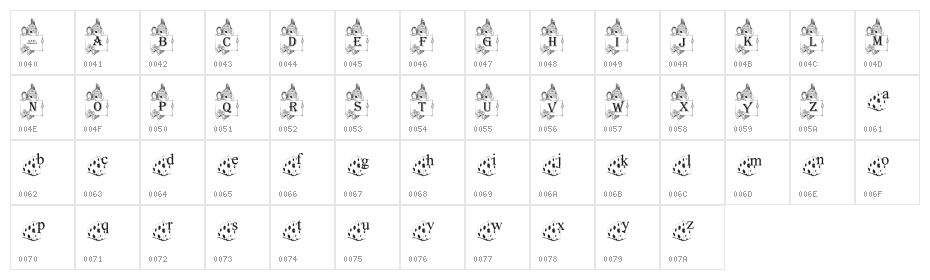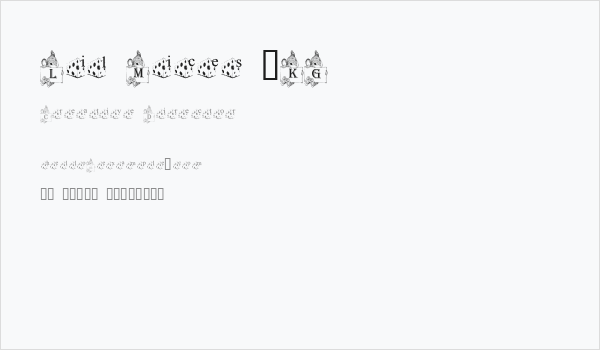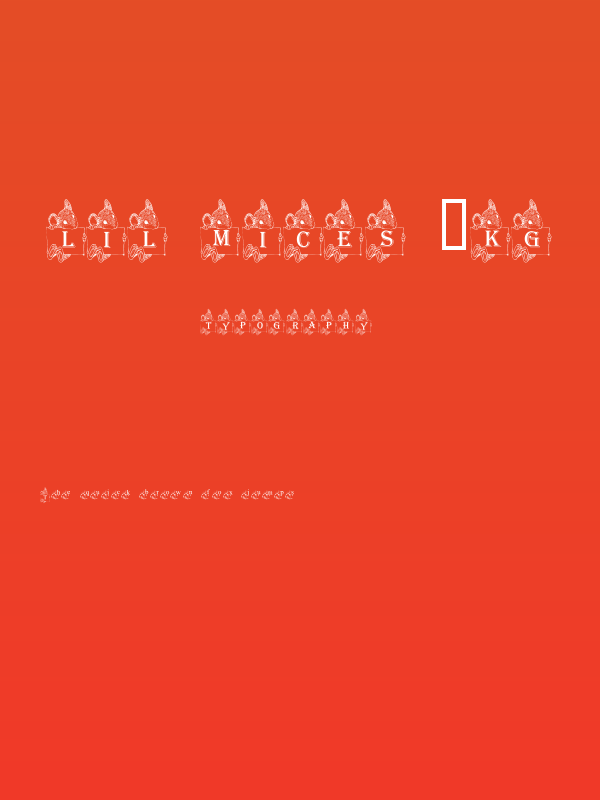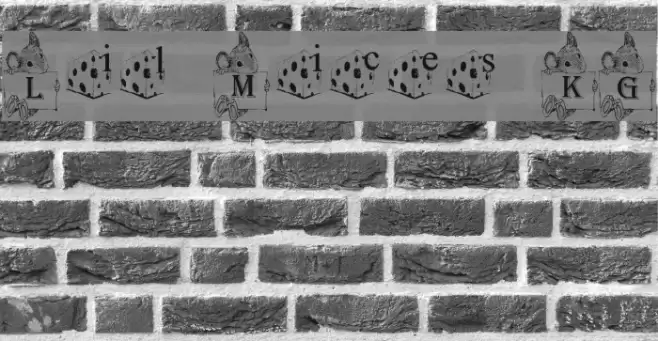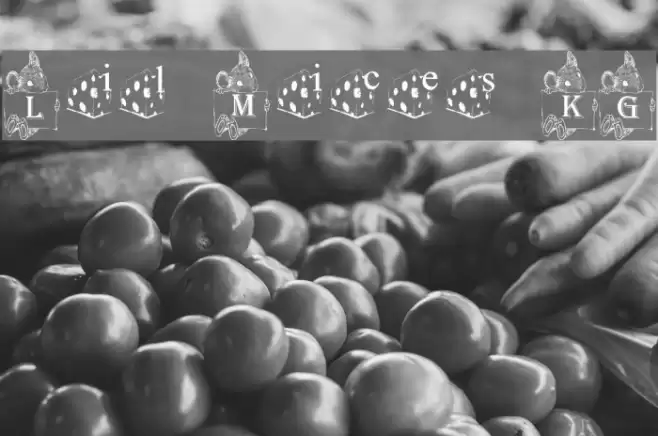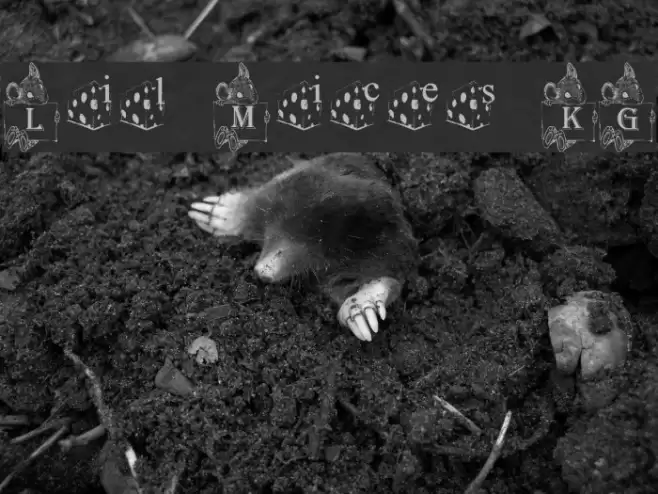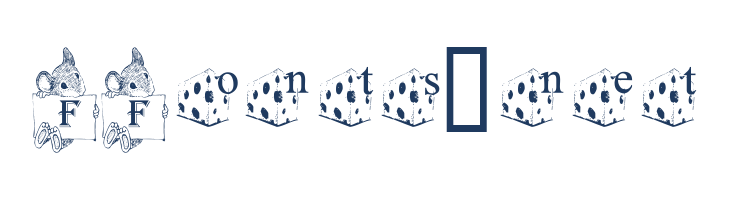
Lil Mices _KG Font
This playful and whimsical font features uppercase letters adorned with charming mouse illustrations, each character nestled within a square. The lowercase letters are creatively designed to resemble blocks of cheese, adding a fun and quirky element. The font does not include traditional numeric or special character representations, instead offering blank placeholders. Its unique design makes it ideal for projects that require a touch of humor and creativity, particularly those aimed at children or themed around animals or food. The font's decorative style is eye-catching and distinct, making it suitable for headlines or titles where a playful tone is desired.
| Proposed Projects | Ideal for children's books, playful branding, themed party invitations, or educational materials. |